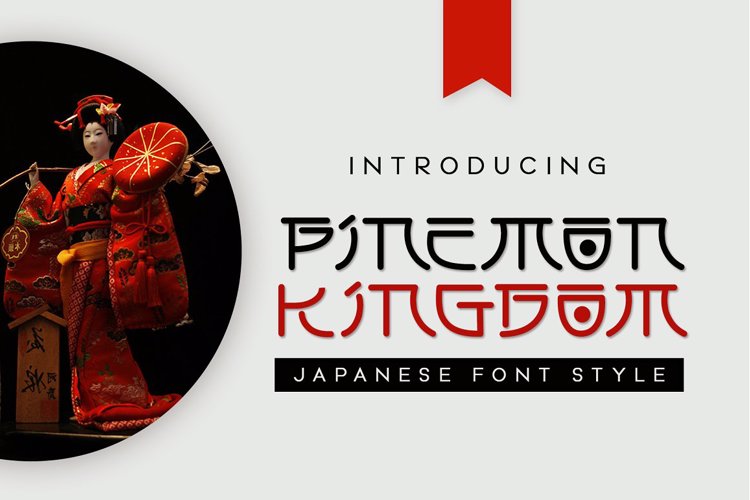
Pinemon Kingdom Font
About Pinemon Kingdom Font
Pinemon Kingdom is a japanese font. We made with excellent taste. We combine ethnic and cultural elements in each of the glyphs. This Pinemon Kingdom font is suitable for those of you who like japanese culture, besides this font is also suitable for those of you who have a japanese restaurant, japanese clothing brand, japanese arts, and business purpose related with japanese culture.